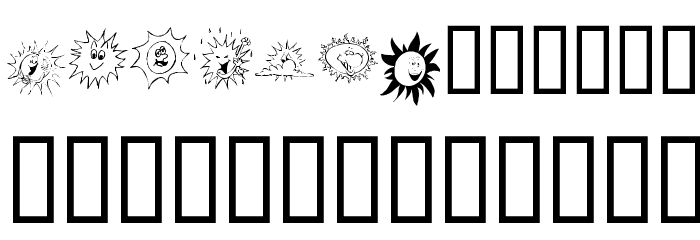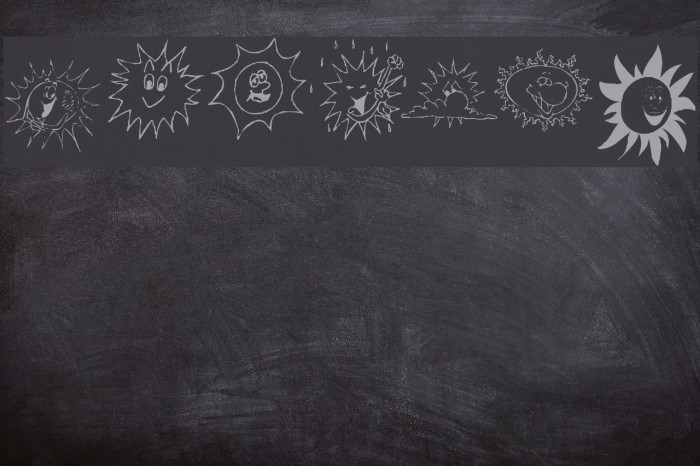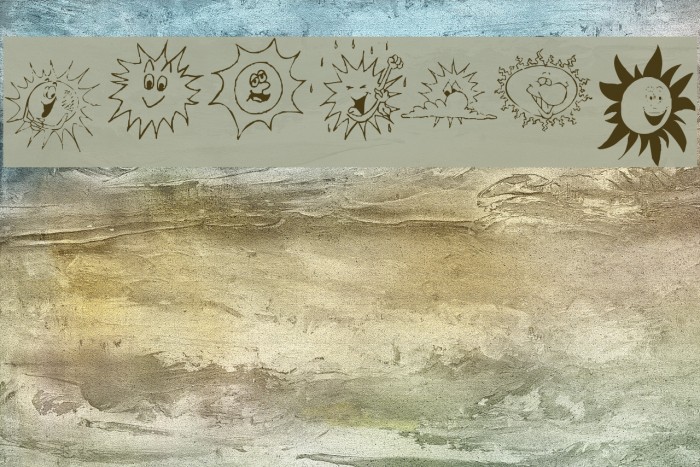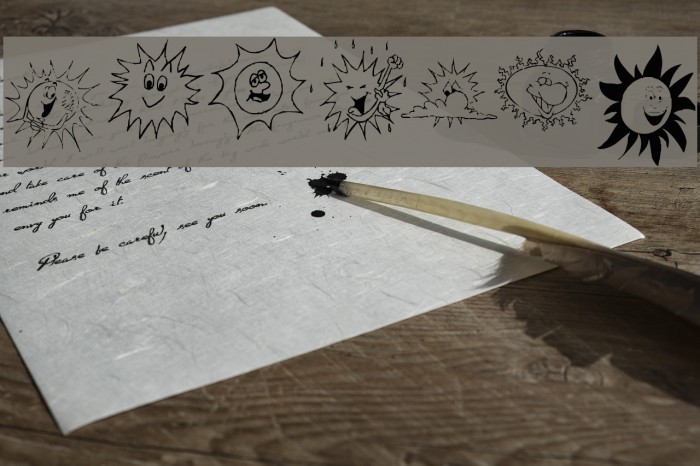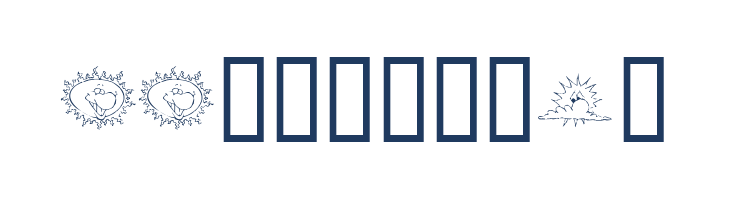
KR Sun Dings Font
This is a decorative font featuring a series of playful sun-themed dingbats. Each character is a unique illustration of a sun with various expressions and styles, ranging from smiling faces to abstract sunbursts. The designs are intricate and whimsical, making them ideal for creative projects that require a touch of fun and lightheartedness. The font does not include traditional alphanumeric characters, focusing instead on these artistic sun motifs. It is perfect for adding a decorative element to designs, particularly those related to summer, warmth, or positivity.
A decorative font with playful sun-themed dingbats.
- Proposed Projects: Ideal for summer-themed invitations, children's book illustrations, greeting cards, and decorative posters.
- Use Case: Logos, Decorative elements